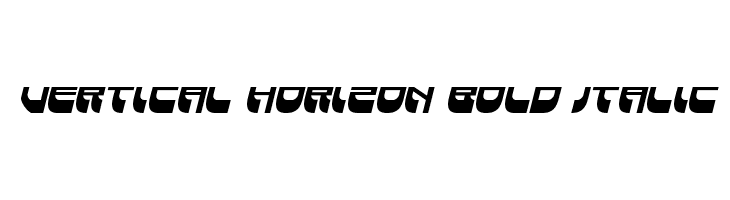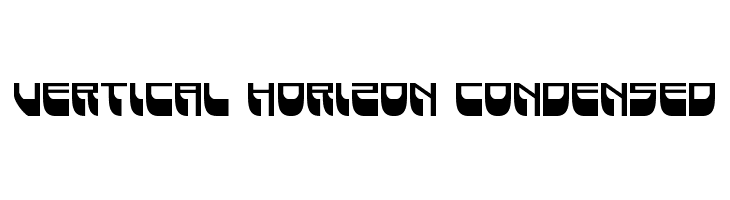
A bold, italicized font with a futuristic and dynamic design.
A bold, futuristic font with a condensed and geometric design.
A bold, condensed, and italicized font with a futuristic and dynamic style.
A futuristic, bold, and geometric font with expanded characters.
A bold, futuristic font with expanded, italicized characters and a sleek, modern design.
A bold, futuristic font with a horizontal line gradient effect.
A futuristic, dynamic font with a horizontal gradient effect and italicized style.
A futuristic, halftone-inspired font with bold, geometric characters.
A bold, futuristic font with horizontal striping and geometric shapes.
A bold, futuristic italic font with geometric shapes and sharp angles.